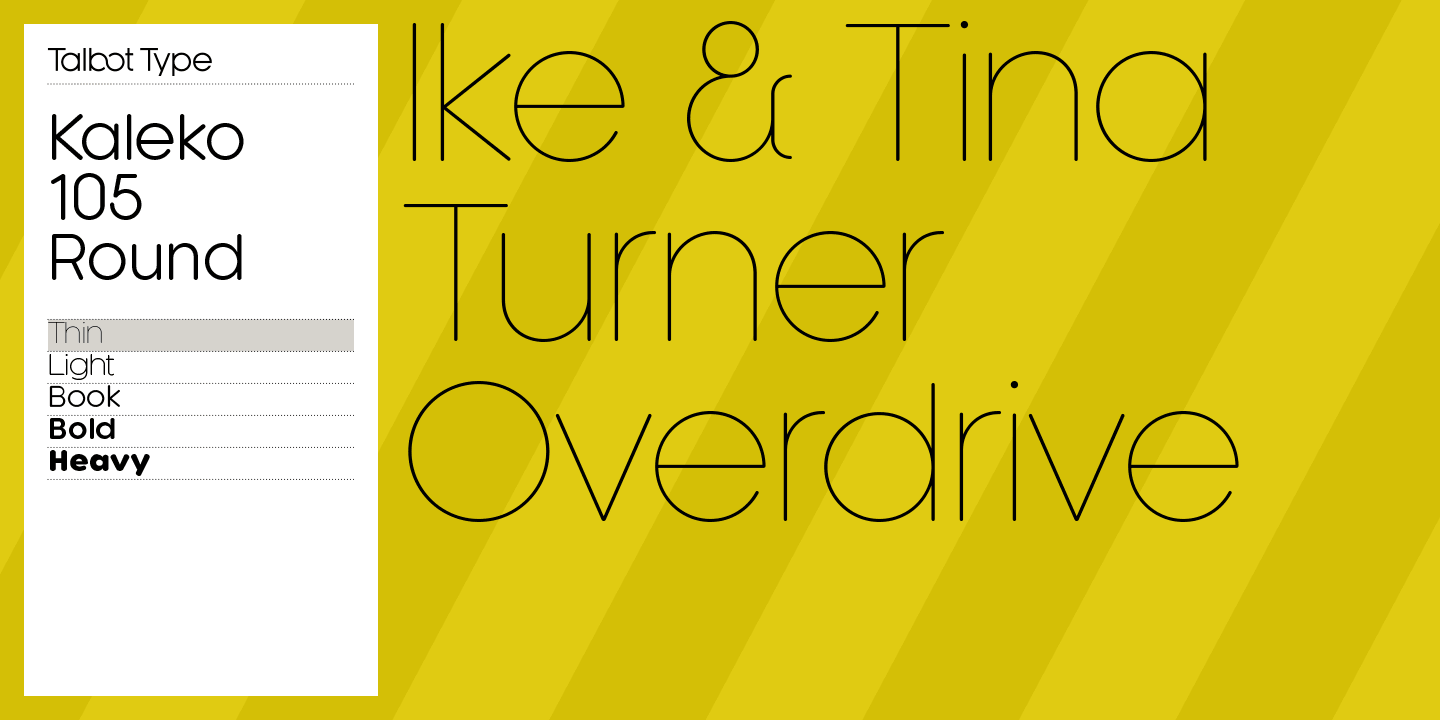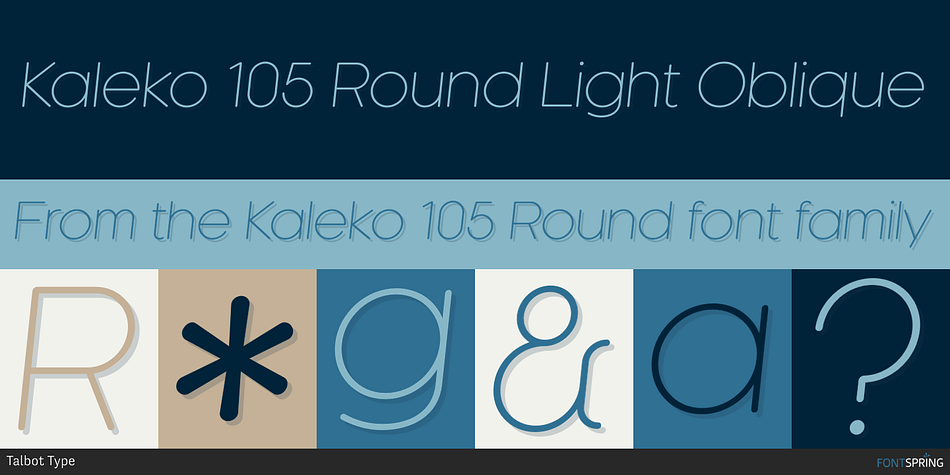
Kaleko 105 Round is a sans serif font family. This typeface has ten styles and was published by Talbot Type.
Kaleko 105 Round Light Oblique
Kaleko 105 Round is a rounded variation of the popular Talbot Type font Kaleko 105. It’s a well-balanced, versatile, modern sans, highly legible as a text font and with a clean, elegant look as a display font at larger sizes. The rounded terminals make for a friendly, approachable look.
The Kaleko 105 Round family comprises five weights, and is closely related to Kaleko 205 Round. The most notable differences between the two variations, are the single-storey lower case a and g in Kaleko 105 Round, where they are two-storey in Kaleko 205 Round.
As well as all of the usual Western European accented characters, Kaleko 105 Round includes an extended character set to include accented characters for Central European languages.